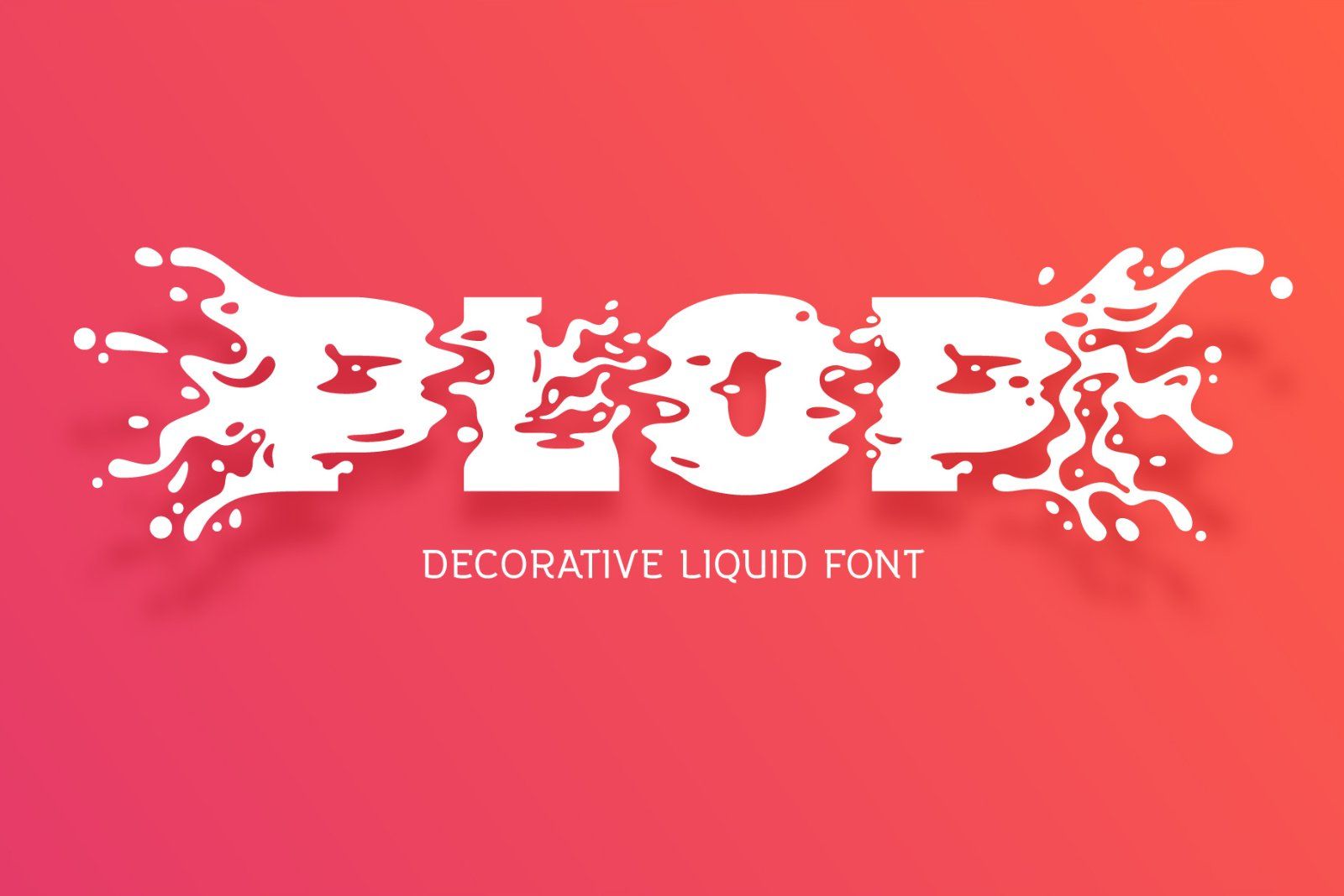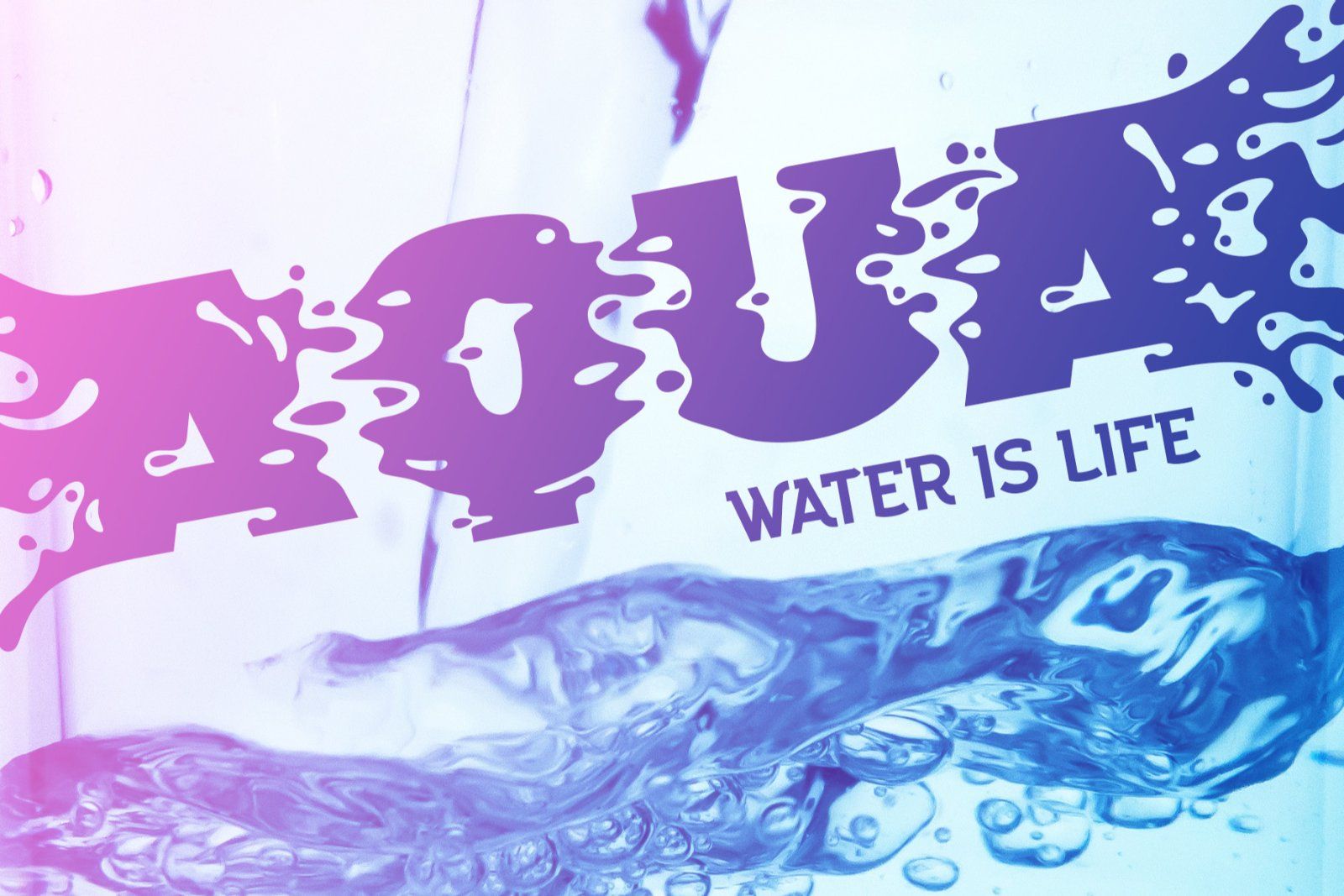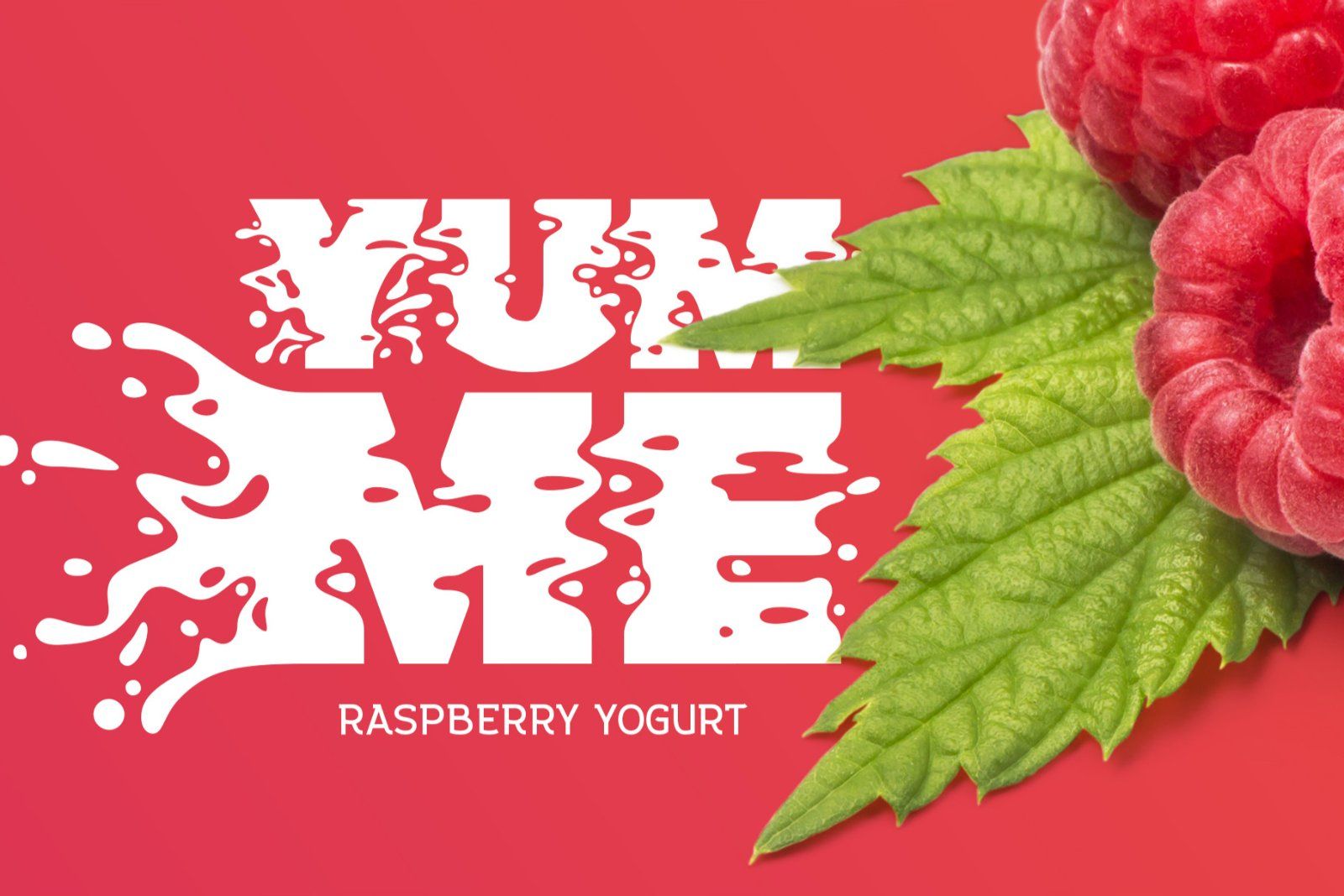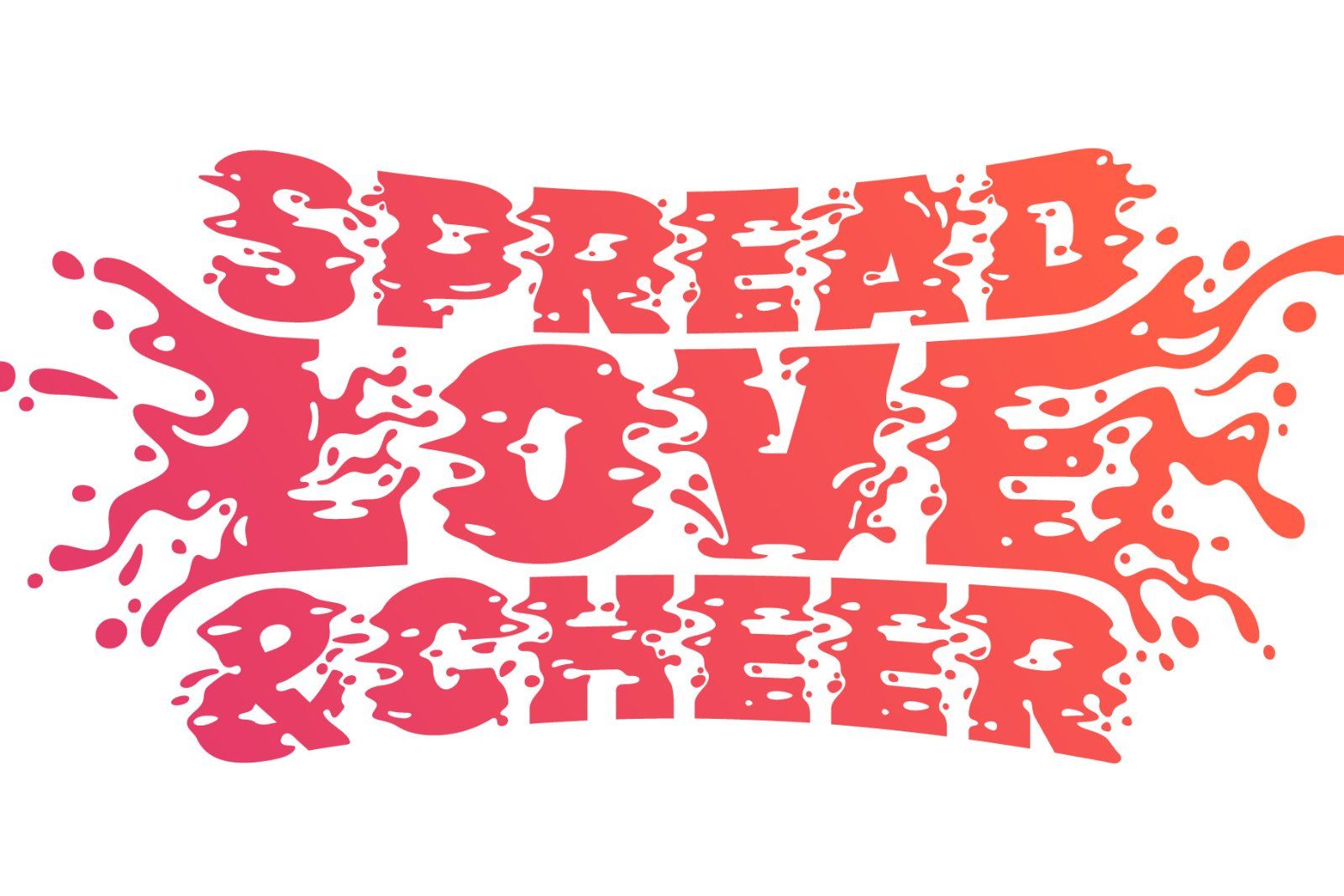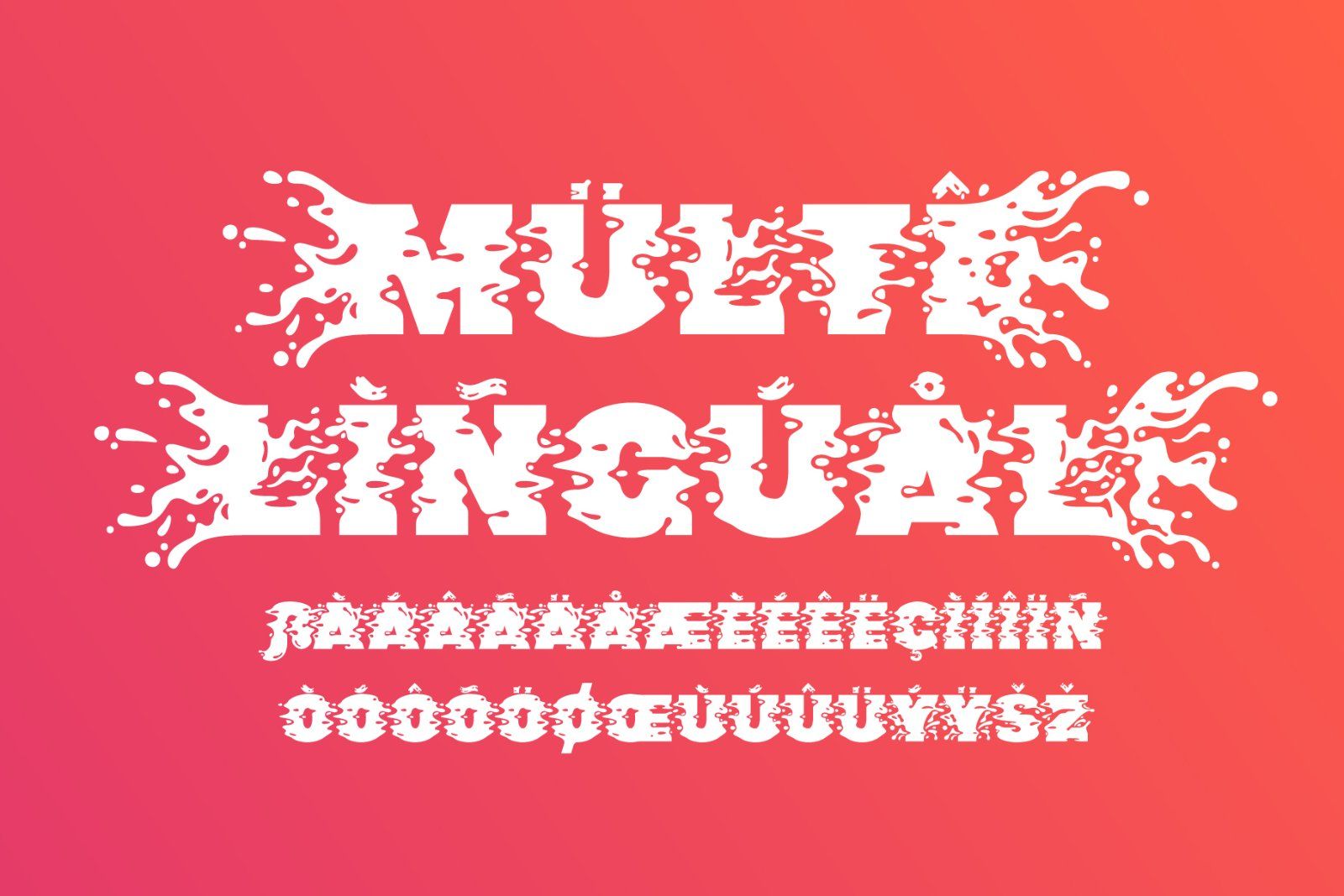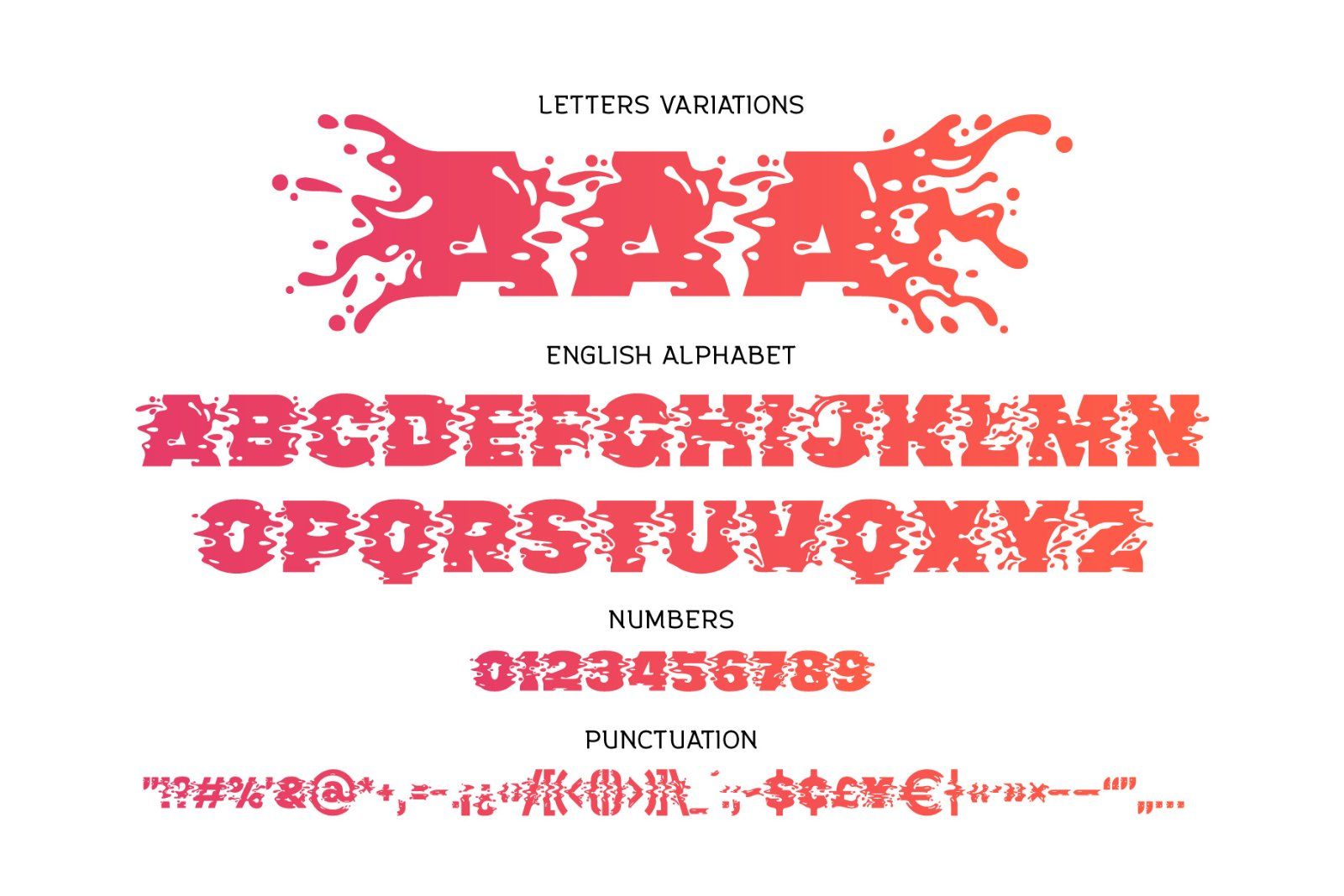
Presenting a decorative liquid font Plop. It's a splashing funny typeface perfect for authentic lettering composition. To use a bigger splash letter just type a capital letter. Same way the last letter in word will be automatically replaced to correct glyph using OpenType features. Both sides splashes are available for all letters including multilingual characters. Otf & Ttf font formats are included.